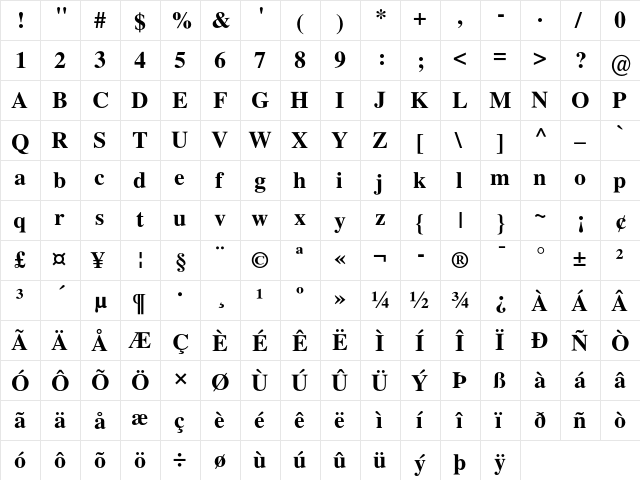
Nimbus Roman No9 L Bold
Design Context for Nimbus Roman No9 L Typeface
Nimbus Roman No9 L takes a measured approach to typography — its balanced proportions and neutral character make it a reliable workhorse for both digital and print work. The heavy weight commands attention and anchors typographic hierarchies.
Pro Tip: Pair Nimbus Roman No9 L with a font of contrasting weight or personality to build a more expressive typographic hierarchy.